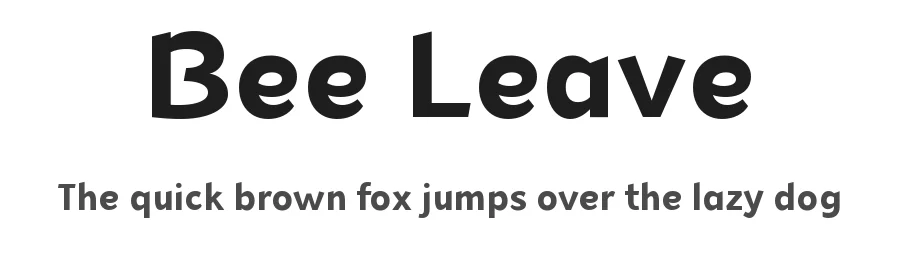
About Gulka Font
Gulka Specifications
| Font Family | Gulka Free Font |
| Full Name | Gulka Free Font Bold |
| Designer | MaulanaCreative |
Gulka supports 89 languages.
Gulka Font is a versatile sans-serif font that works for both headings and body text. Pair it with a contrasting serif or slab serif font to add visual interest and a clear distinction between titles and body copy.